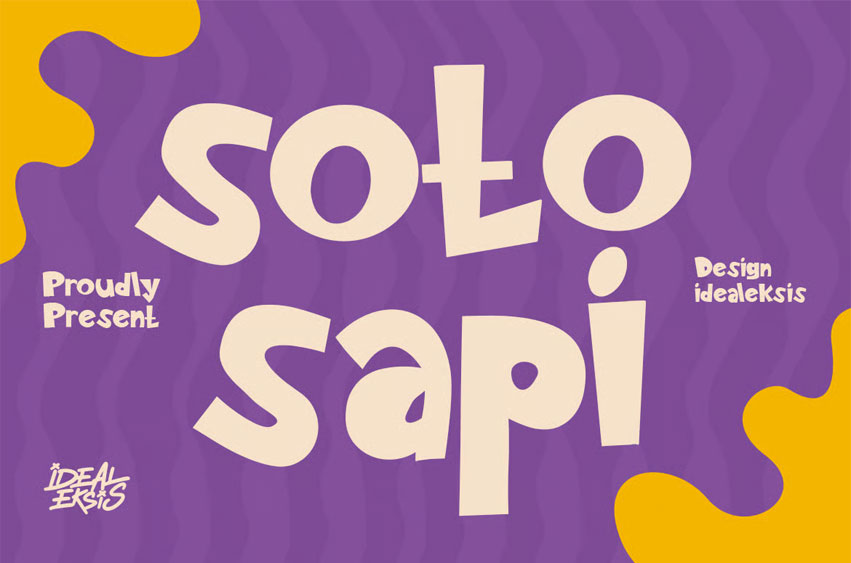
Soto Sapi Font is typeface features bold, chunky letterforms with an organic, hand-drawn quality. The strokes exhibit a playful variation in width, creating a dynamic and bouncy visual rhythm. Its rounded terminals and lack of sharp angles contribute to a friendly, approachable aesthetic.
The overall design is highly expressive, making it suitable for eye-catching headlines, logo design, and creative packaging projects that require a sense of fun and energy.
Perfect for
- Bakery and café branding
- Food and beverage logos
- Restaurant menus and signage
- Coffee shop and donut shop designs
- Food packaging and labels
- Social media food promotions
- Kitchen-themed posters and prints
- Culinary blogs and recipe graphics